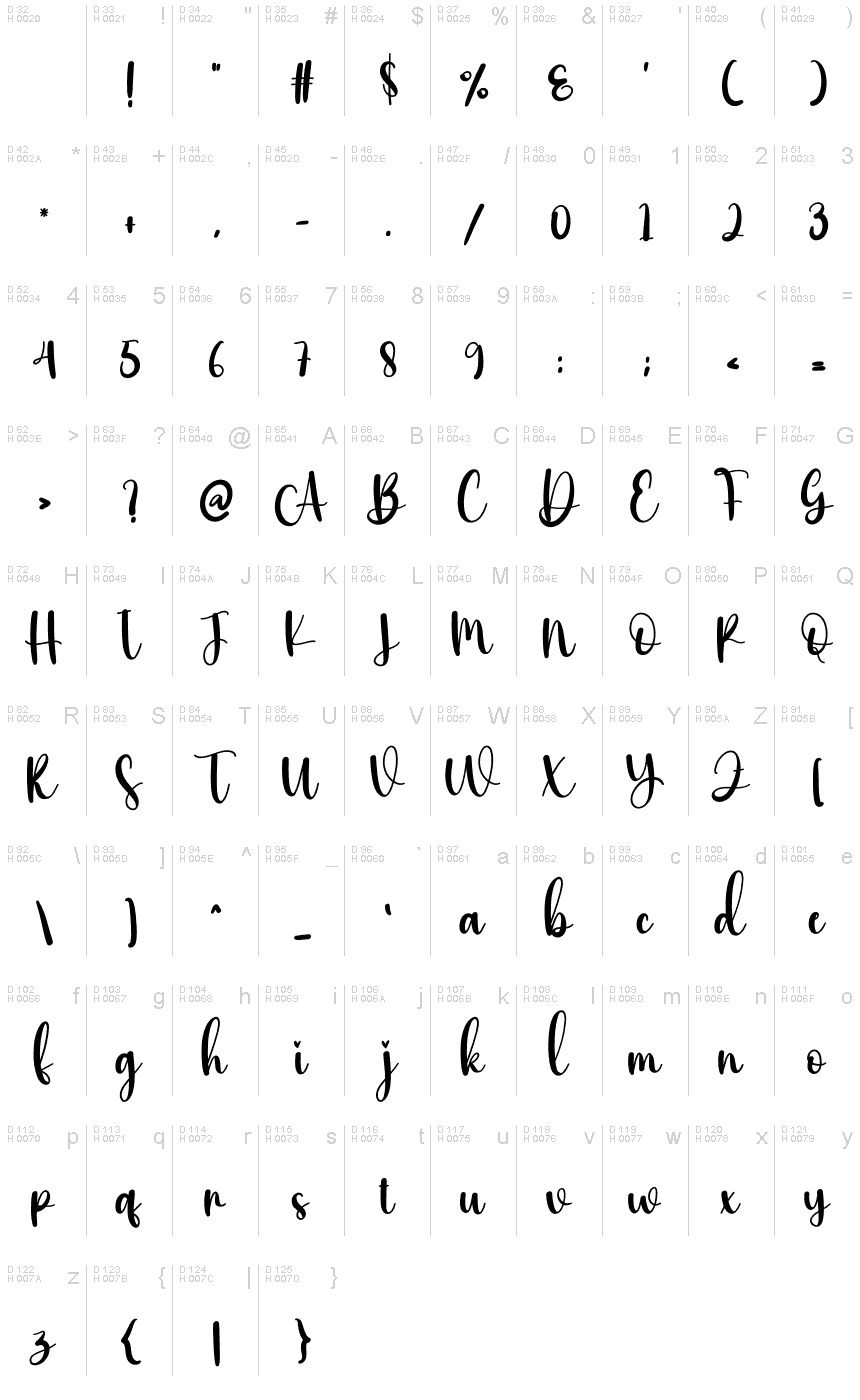
The Flowers
The Flowers, a mesmerizing calligraphy font by Scratchones, exudes an air of delicate elegance with its semi-light weight. Its graceful curves and flowing lines make it perfect for projects that demand a touch of sophistication and femininity.
With The Flowers, invitations to weddings and high-end events become enchanting works of art. This font adds a romantic flair to branding materials for beauty salons or fashion boutiques. Whether it's creating exquisite logos or designing captivating book covers, The Flowers will effortlessly elevate any project that requires a refined and poetic touch.
The latest style letters are perfect for wall displays, wedding invitations, social media post logos, advertisements, product packaging, product designs, labels, photography, watermarks, invitations, stationery, and any project that requires taste handwriting.